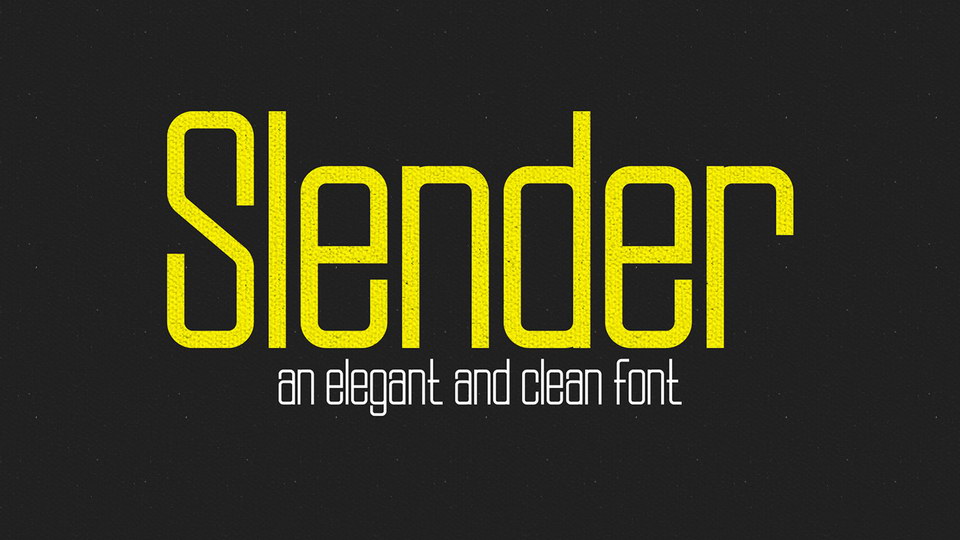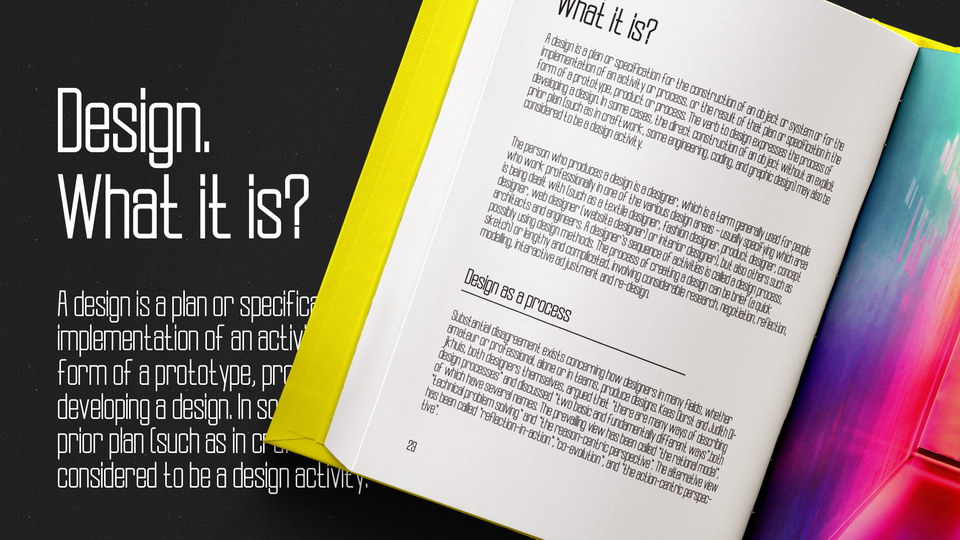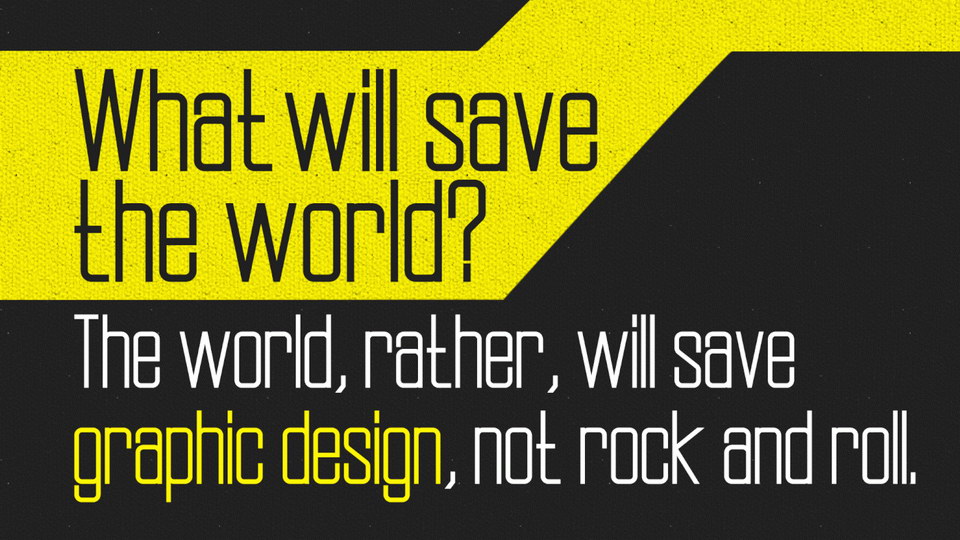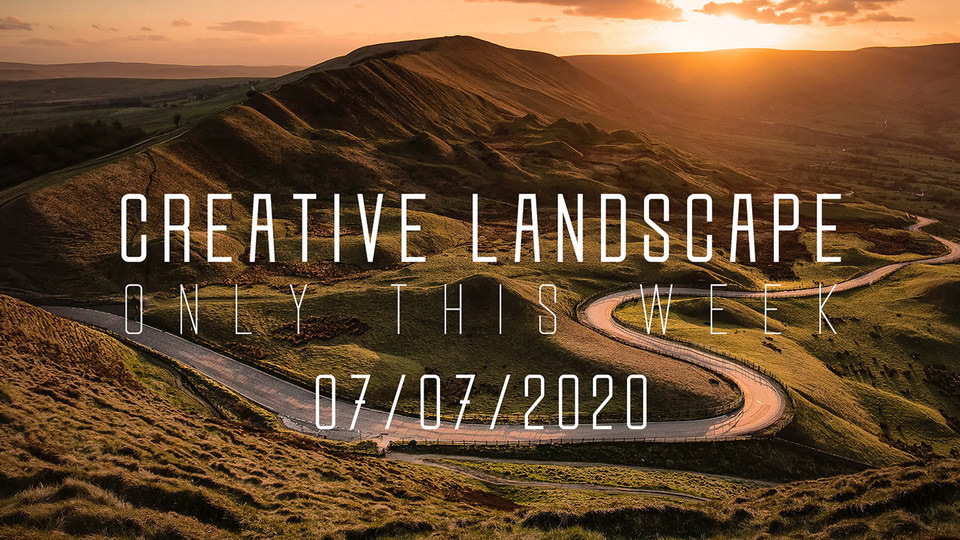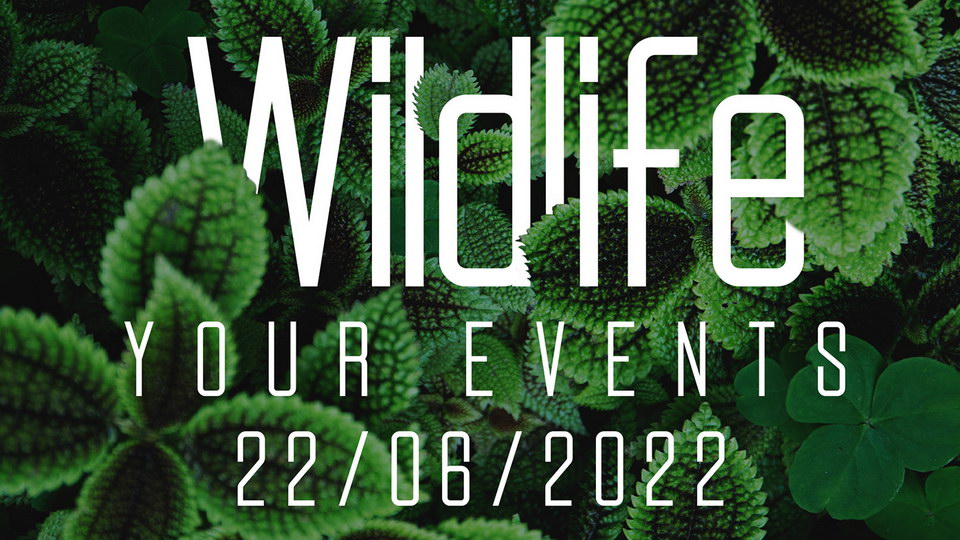
Slender is an elegant and clean geometric font. It comes in 4 weights: Thin, Normal, Semibold, Bold, each font with a basic glyph set.
Slender is a modern typeface for books, headlines, logos, title, print, magazine.